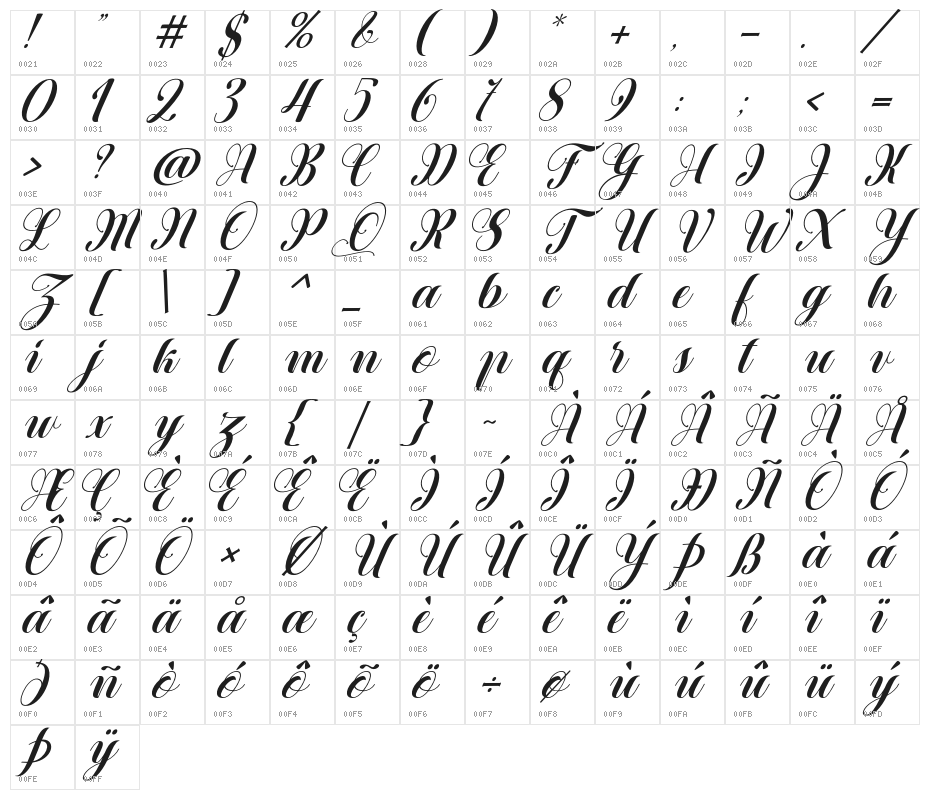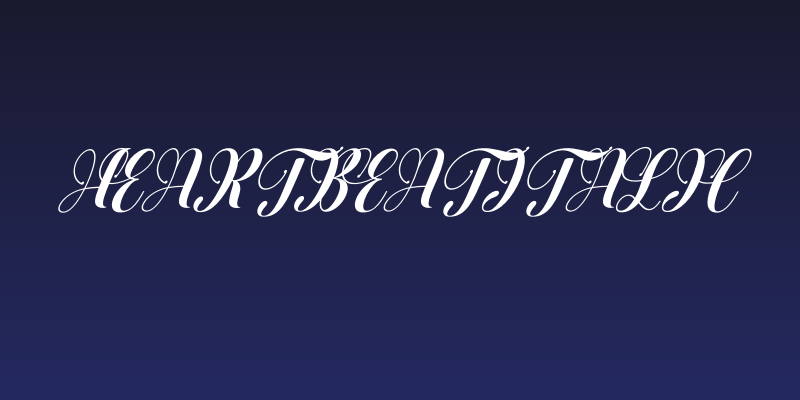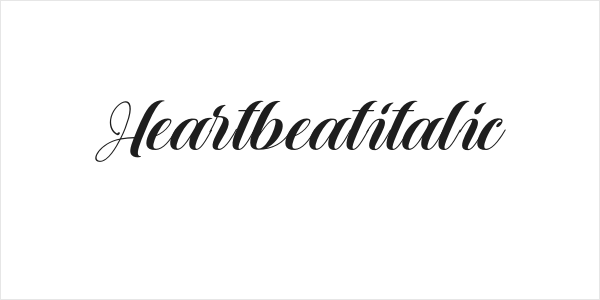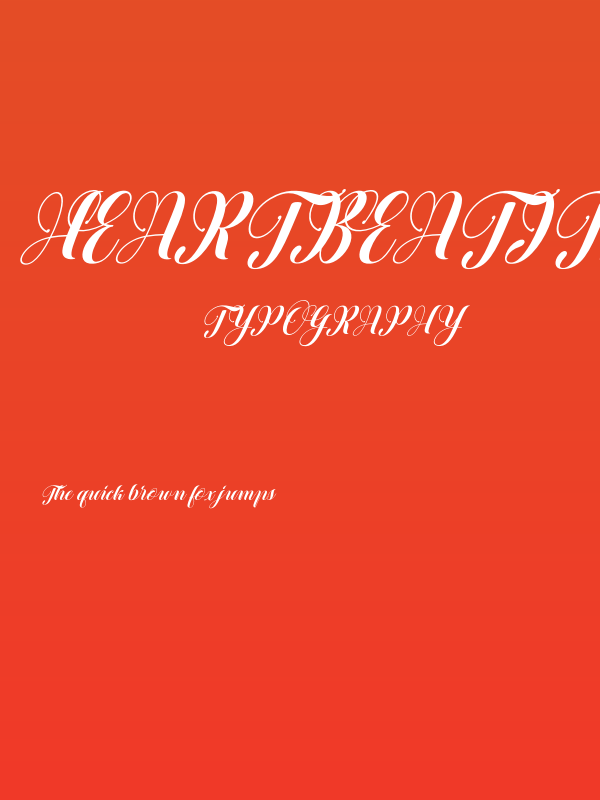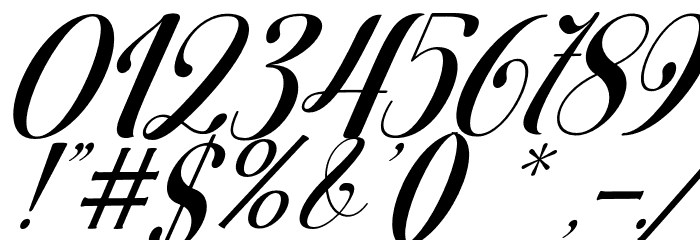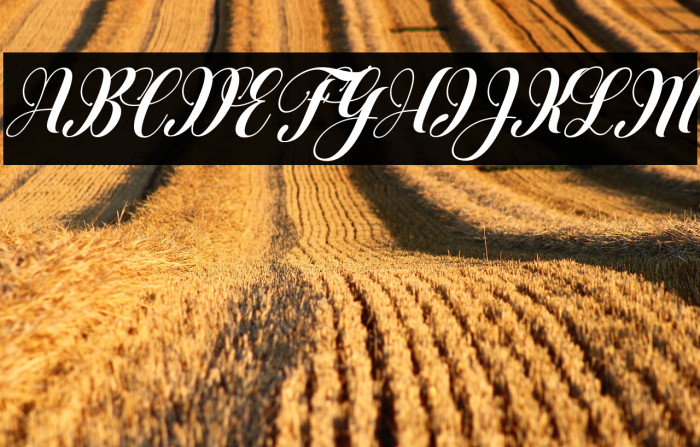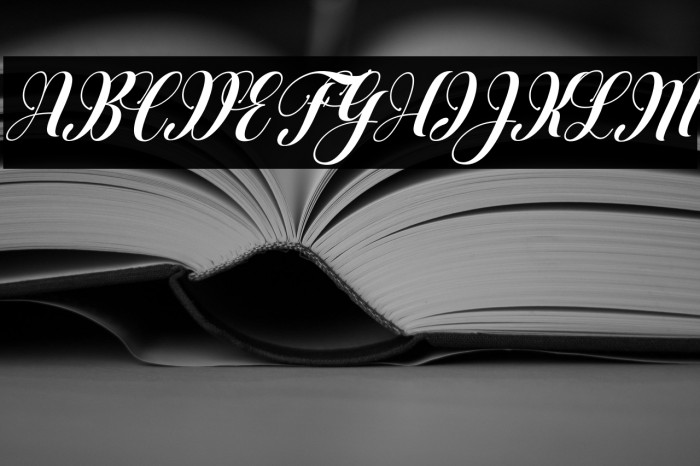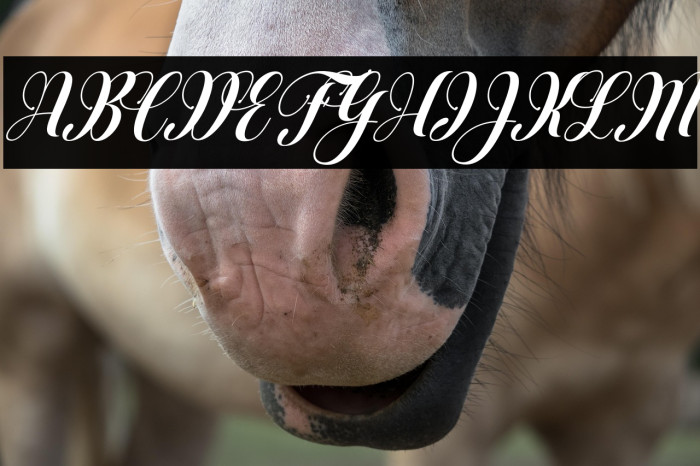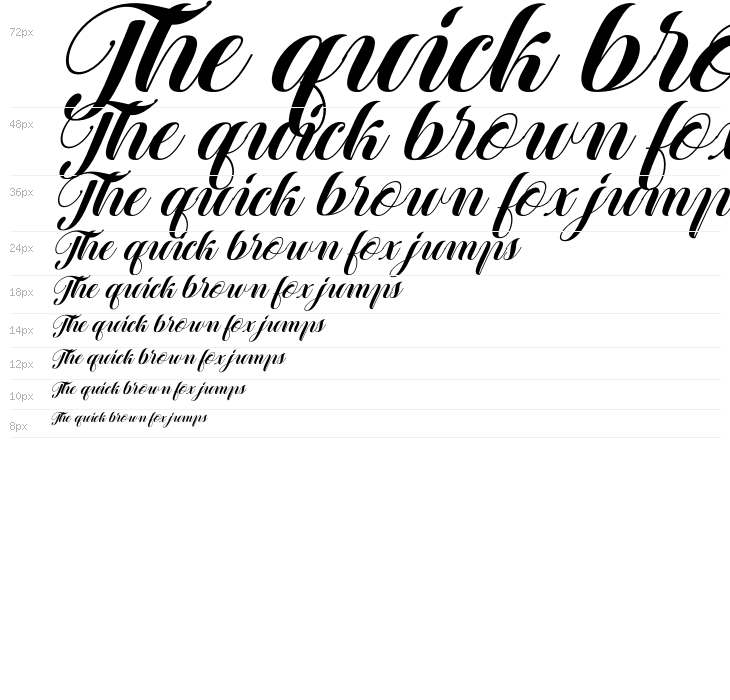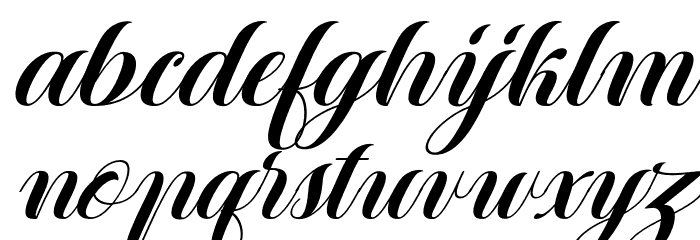
Heartbeatitalic Font
Heartbeatitalic Description
This font exudes elegance and sophistication with its flowing, cursive style. The characters are intricately designed, featuring smooth, sweeping curves and delicate loops that give it a sense of movement and grace. The uppercase letters are particularly ornate, with flourishes that extend beyond the baseline and cap height, adding a touch of drama. The lowercase letters maintain a consistent rhythm, enhancing readability while preserving the decorative nature of the font. Numbers and special characters are equally stylized, ensuring a cohesive look across all text elements. This font is perfect for projects that require a touch of class and refinement.